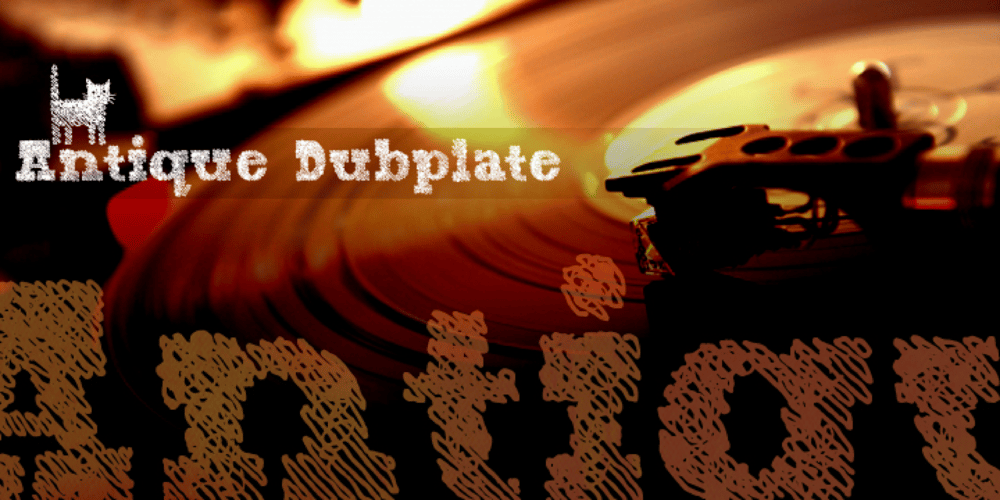
Antique Dubplate
Antique Dubplate font
Antique Dubplate Font Family was designed by Luke William Turvey and published by Okaycat. Antique Dubplate contains 1 styles and family package options. A gritty, deeply textured font where each letter was sketched by hand! Need to create an artistic, rich & friendly feeling with your text? Use Antique Dubplate. Antique Dubplate is extended, containing West European diacritics & ligatures, making it suitable for multilingual environments & publications.